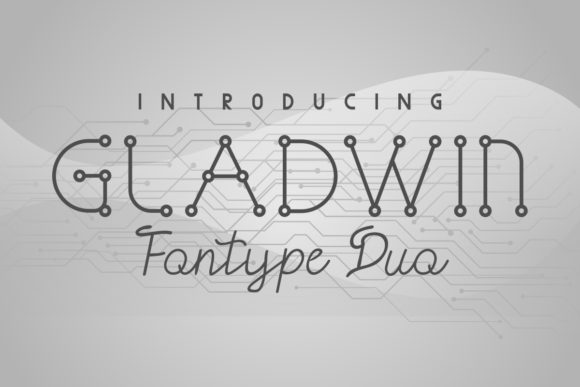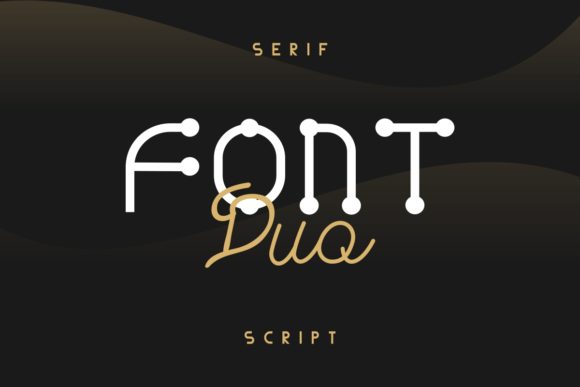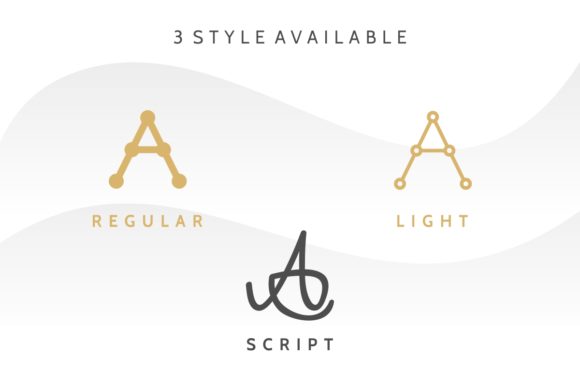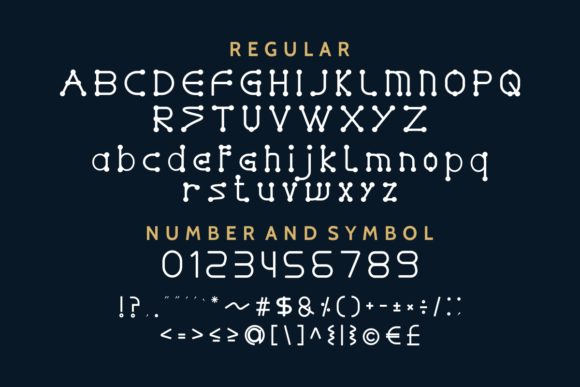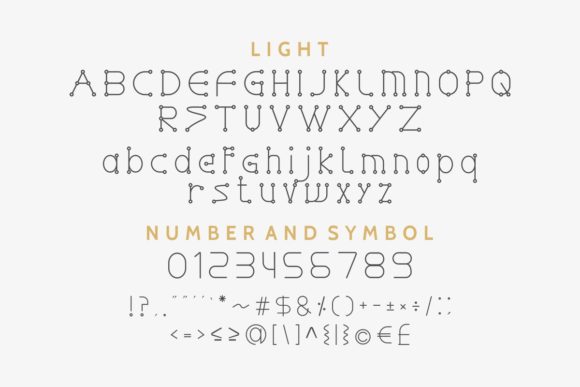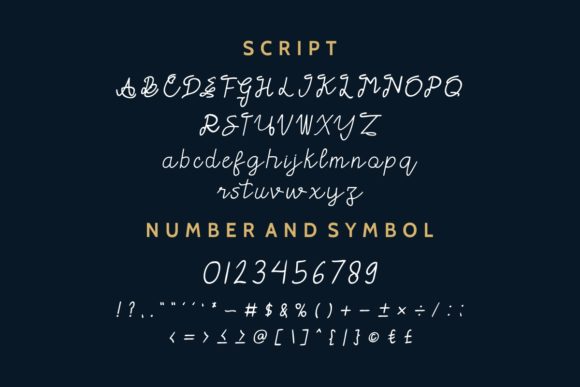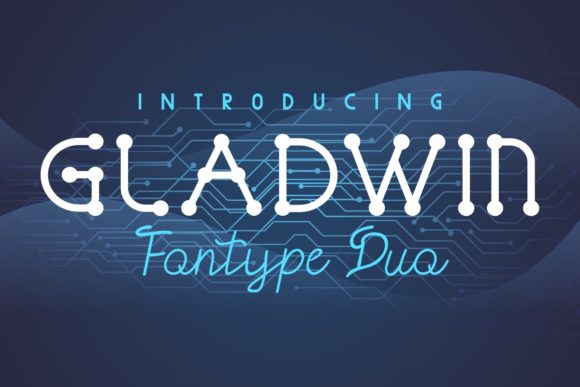
Introducing Gladwin Font: The Majestic Serif Style for Creative Projects
Are you a designer or crafter looking for a unique and elegant font to elevate your creative projects? Look no further than Gladwin Font, a majestic serif style font family that is sure to impress. With its distinctive appearance and versatility, Gladwin Font is perfect for a wide range of applications, from branding and advertising to packaging and editorial design.
The Characteristics of Gladwin Font
Gladwin Font is a serif style font family that boasts a regal and sophisticated appearance. Its majestic lines and curves evoke a sense of luxury and refinement, making it ideal for projects that require a touch of elegance. The font features a unique blend of classic and modern elements, resulting in a distinctive look that sets it apart from other serif fonts.
What Makes Gladwin Font Special?
So, what makes Gladwin Font so special? Here are just a few reasons why designers and crafters are falling in love with this majestic font:
- Unique Appearance: Gladwin Font has a one-of-a-kind appearance that is sure to grab attention. Its distinctive lines and curves make it perfect for projects that require a touch of personality.
- Versatility: Gladwin Font is incredibly versatile, making it suitable for a wide range of creative projects. Whether you’re designing a logo, brochure, or packaging, this font is sure to shine.
- Elegance: Gladwin Font exudes elegance and sophistication, making it perfect for high-end branding and advertising projects.
How to Use Gladwin Font in Your Creative Projects
Gladwin Font is incredibly easy to use and can be applied to a wide range of creative projects. Here are just a few ideas to get you started:
- Branding: Use Gladwin Font to create a luxurious and sophisticated brand identity that sets your business apart.
- Advertising: Add a touch of elegance to your advertising campaigns with Gladwin Font.
- Packaging: Use Gladwin Font to create eye-catching packaging that stands out on store shelves.
- Editorial Design: Add a touch of sophistication to your editorial designs, such as magazines and newspapers, with Gladwin Font.
Tips for Getting the Most Out of Gladwin Font
To get the most out of Gladwin Font, here are a few tips to keep in mind:
- Experiment with Font Sizes: Gladwin Font looks great in a variety of font sizes, so don’t be afraid to experiment to find the perfect size for your project.
- Pair with Other Fonts: Gladwin Font pairs well with a range of other fonts, so try combining it with other fonts to create a unique look.
- Pay Attention to Kerning: As with any font, pay attention to kerning to ensure that your text looks professional and polished.
Gladwin Font is a majestic serif style font family that is sure to elevate your creative projects. With its unique appearance, versatility, and elegance, this font is perfect for designers and crafters looking to add a touch of sophistication to their work. Whether you’re creating a brand identity, advertising campaign, or packaging design, Gladwin Font is sure to impress.